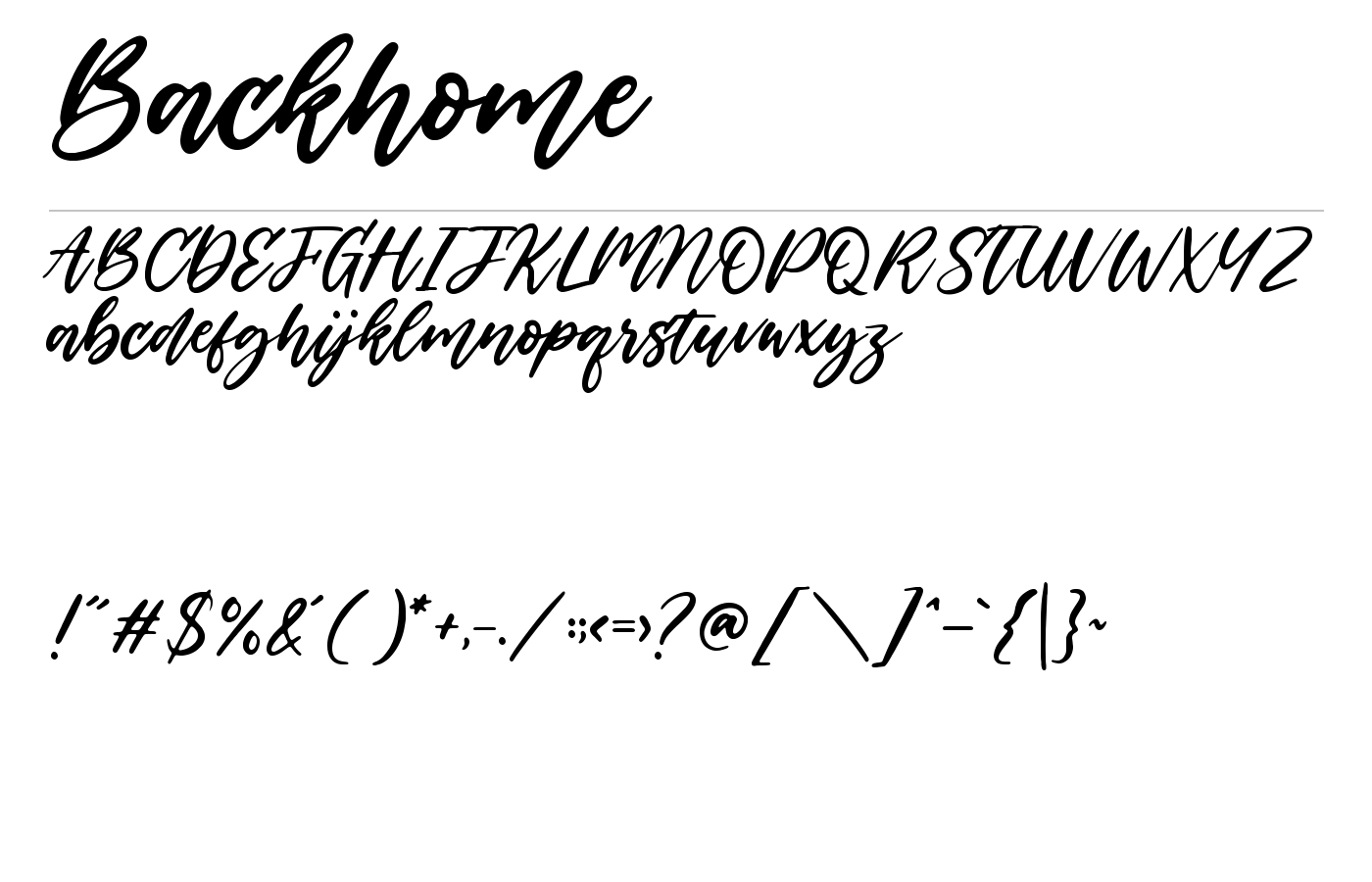
Backhome is a lively and elegant script font with fluid, brush-like strokes that give it a natural handwritten feel. Its medium weight and slightly condensed letterforms create a friendly yet refined appearance, making it perfect for personal branding, invitations, and casual luxury designs that want to convey warmth and sophistication. This font shines in logos, packaging, and headlines where a stylish, approachable signature look is desired.
Backhome Font
About Backhome Font
| Font family | Backhome Font |